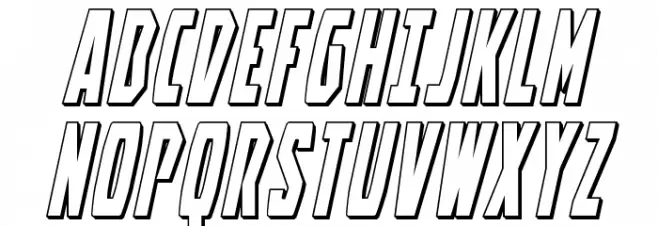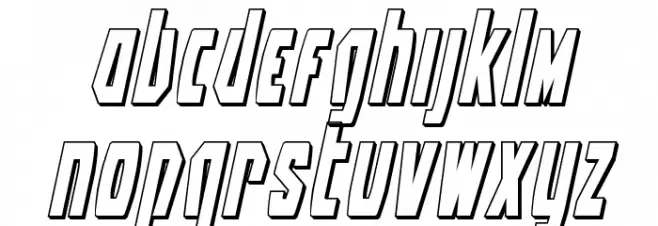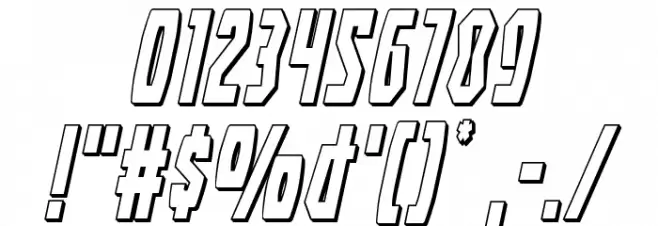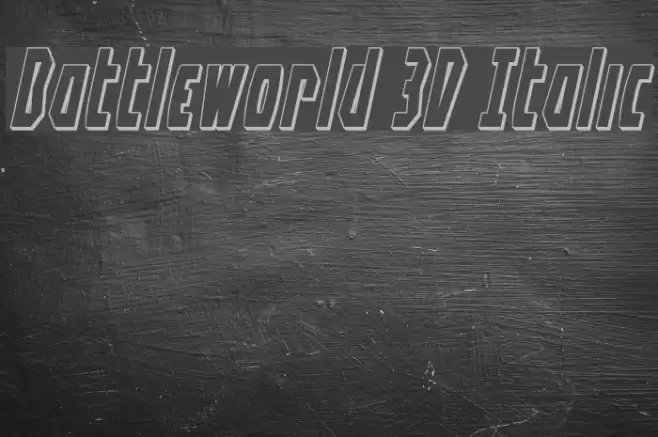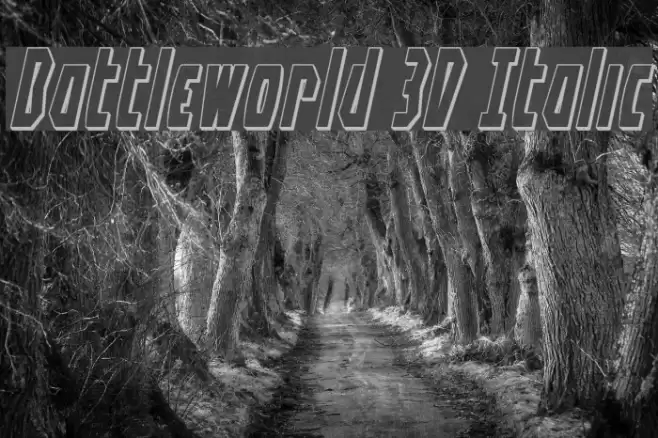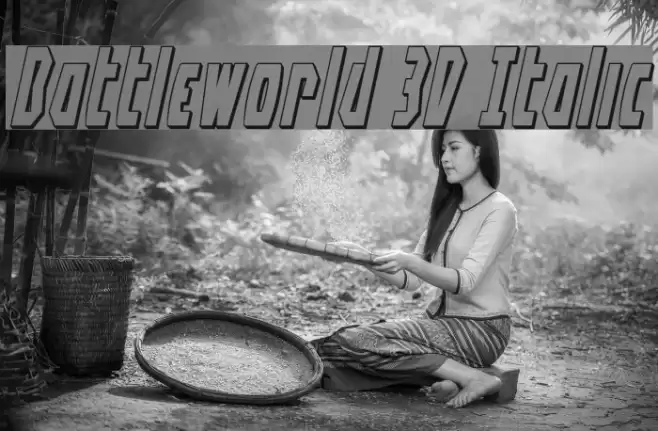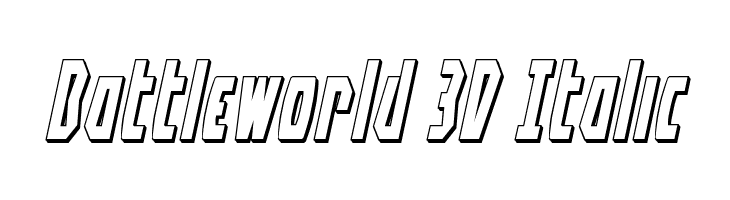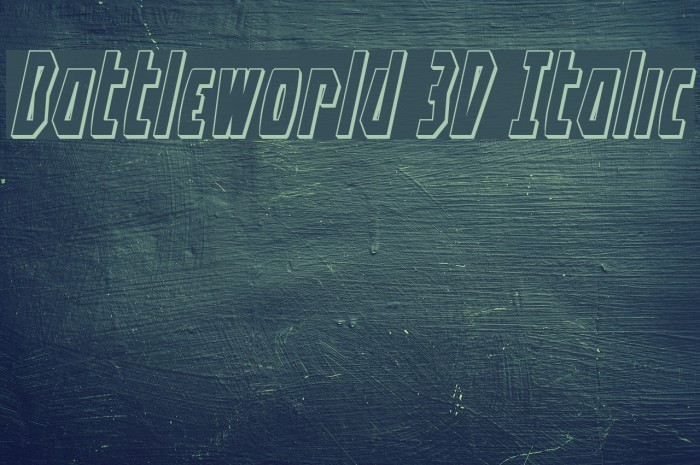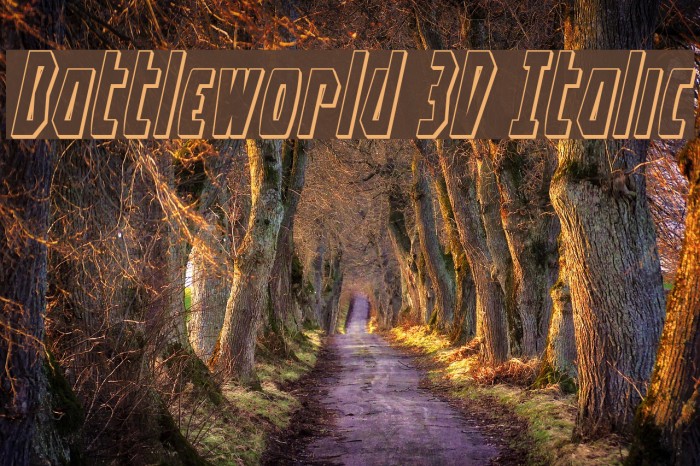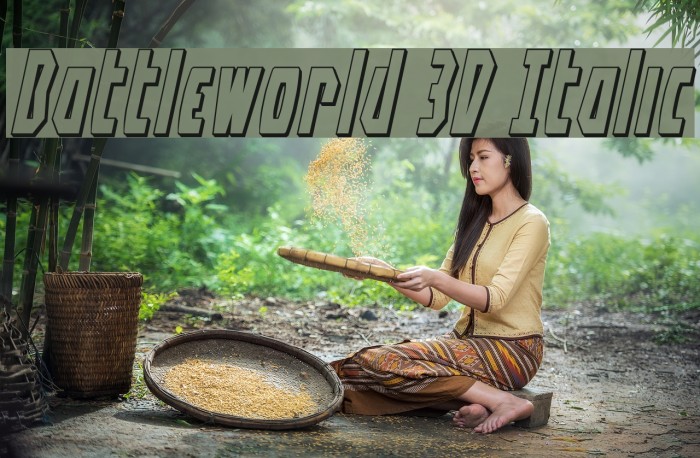
Battleworld 3D Italic
This font features a bold, three-dimensional style with a strong italic slant, giving it a dynamic and futuristic appearance. The characters are outlined, creating a striking visual effect that enhances their boldness. The uppercase and lowercase letters maintain a consistent style, with sharp angles and clean lines that contribute to its modern aesthetic. The numbers and special characters are designed to match the overall theme, ensuring uniformity across all glyphs. This font is ideal for projects that require a standout, eye-catching typeface with a sense of movement and depth.
A bold, 3D italic font with a futuristic and dynamic style.
- Proposed Projects: Perfect for video game titles, movie posters, sci-fi themed designs, and branding that requires a bold statement.
- Contrast: High